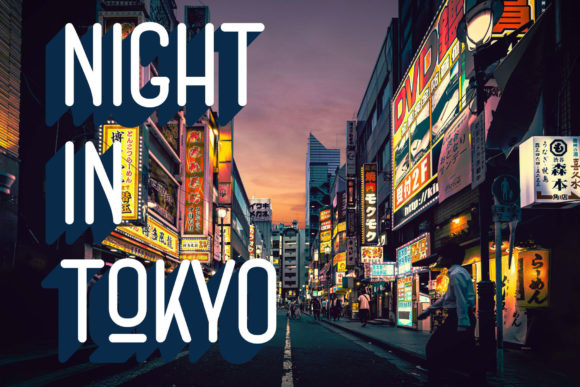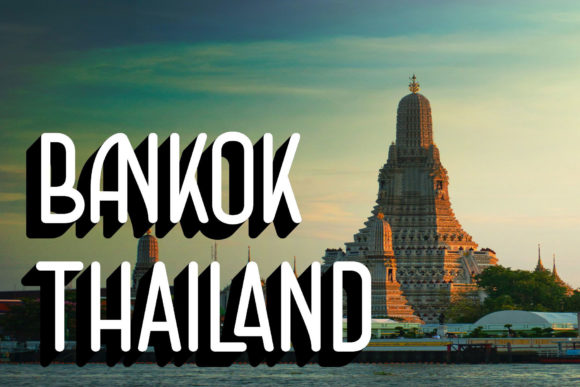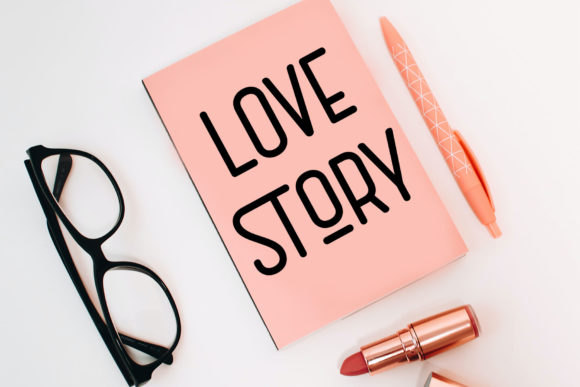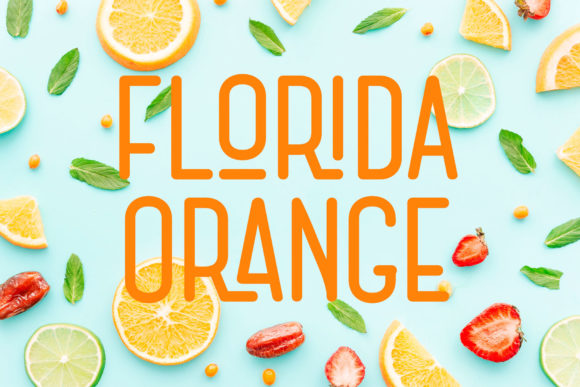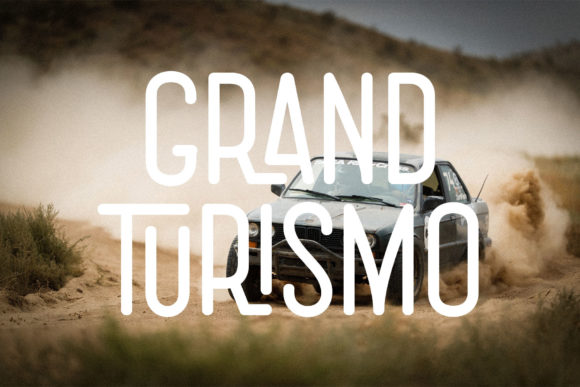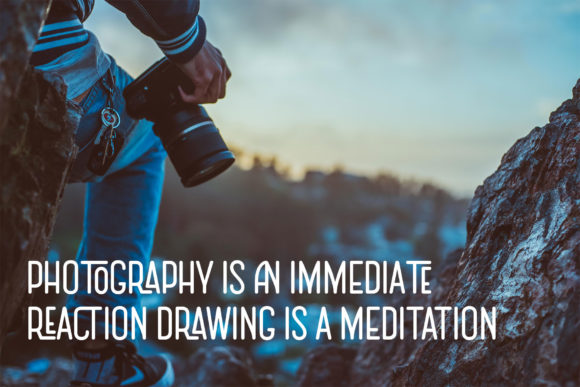
Introducing Gramoles Font: The Ultimate Retro Display Font for Creative Projects
Are you a designer or crafter looking for a font that adds a touch of nostalgia and vintage charm to your creations? Look no further than Gramoles Font! This cool, vintage-styled display font is perfect for a wide range of projects that require a retro aesthetic. From branding and advertising to packaging and DIY crafts, Gramoles Font is the perfect choice for anyone looking to add a unique and eye-catching element to their work.
The Characteristics of Gramoles Font
Gramoles Font is a display font that boasts a distinctive, vintage-inspired design. Its unique characteristics make it stand out from other fonts, and its versatility ensures that it can be used in a variety of contexts. Here are some of the key features that make Gramoles Font so special:
• Retro aesthetic: Gramoles Font has a distinctly retro feel that is reminiscent of classic advertising and branding from the 1950s and 60s.
• Vintage-inspired design: The font features bold lines, classic letterforms, and a stylized approach to typography that is sure to evoke a sense of nostalgia.
• Highly legible: Despite its vintage aesthetic, Gramoles Font is highly legible, making it perfect for use in a variety of contexts, from headlines and titles to labels and packaging.
• Versatile: Gramoles Font can be used in a wide range of projects, from digital designs to print materials, and is suitable for use in a variety of industries, from fashion and beauty to food and beverage.
Uses for Gramoles Font
The only limit to the uses for Gramoles Font is your imagination! This versatile font can be used in a wide range of creative projects, including:
• Branding and advertising: Use Gramoles Font to add a touch of retro charm to your branding and advertising materials, from logos and business cards to billboards and print ads.
• Packaging: Gramoles Font is perfect for use in packaging design, adding a vintage touch to labels, tags, and other packaging materials.
• DIY crafts: Whether you’re creating handmade cards, gift tags, or other DIY crafts, Gramoles Font is a great choice for adding a personal touch.
• Digital designs: Gramoles Font can be used in digital designs, from social media graphics to website headers and more.
Tips for Using Gramoles Font
To get the most out of Gramoles Font, here are a few tips to keep in mind:
• Use it sparingly: Gramoles Font is a bold, attention-grabbing font that works best when used sparingly. Use it for headlines and titles, and pair it with a simpler font for body text.
• Experiment with colors: Gramoles Font looks great in a variety of colors, from bold and bright to muted and pastel. Experiment with different colors to find the perfect look for your project.
• Pair it with other fonts: Gramoles Font pairs well with a variety of other fonts, from simple sans-serifs to more decorative script fonts. Experiment with different pairings to find the perfect look for your project.
Gramoles Font is a unique and versatile font that is perfect for designers and crafters looking to add a touch of retro charm to their creations. With its vintage-inspired design, highly legible letterforms, and bold aesthetic, Gramoles Font is sure to make a statement in any project. Whether you’re working on branding and advertising materials, packaging, DIY crafts, or digital designs, Gramoles Font is a great choice. So why wait? Download Gramoles Font today and start adding a touch of nostalgia to your creative projects!